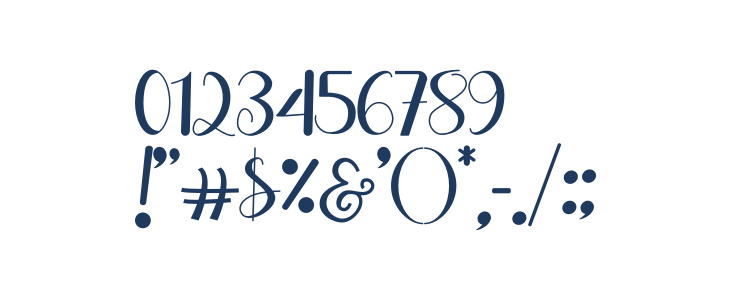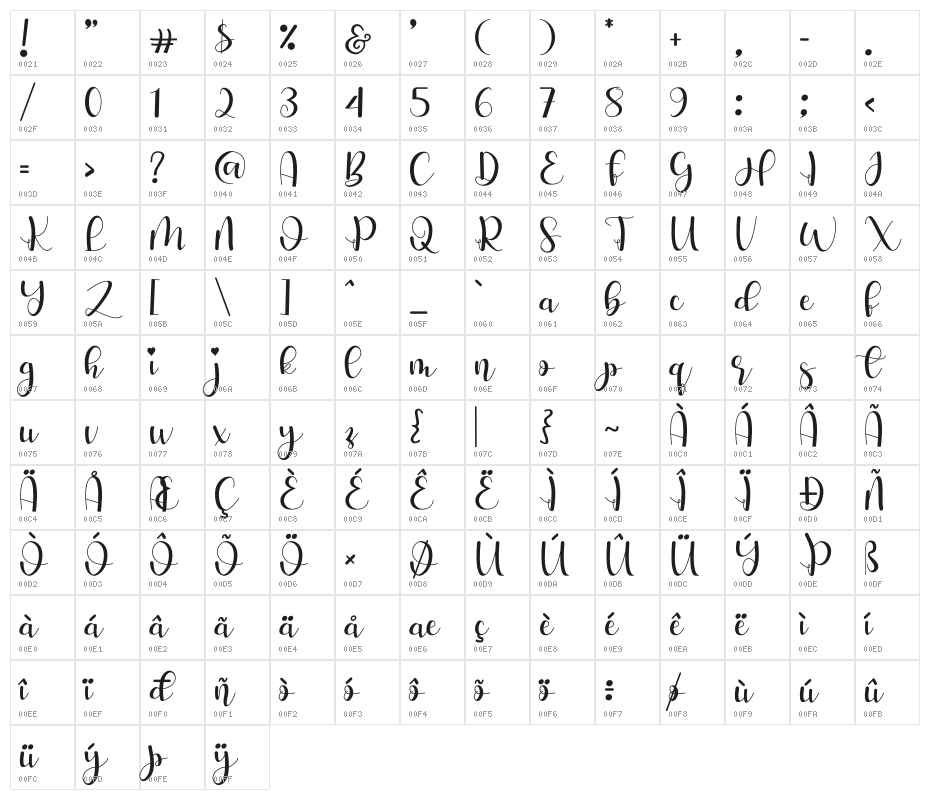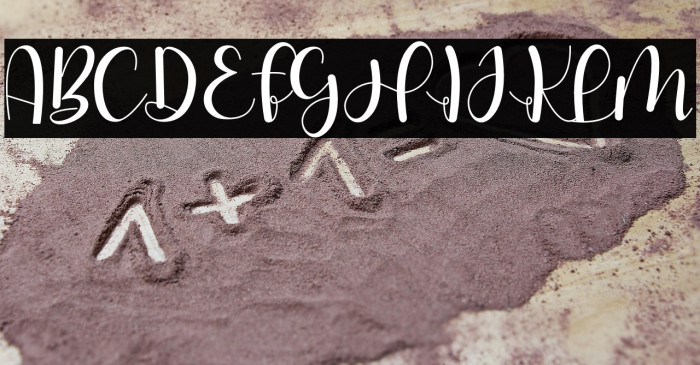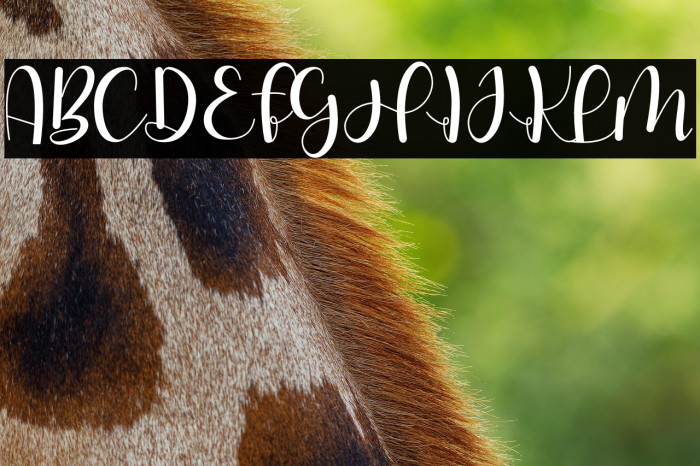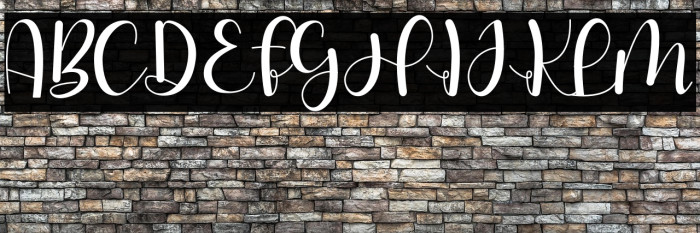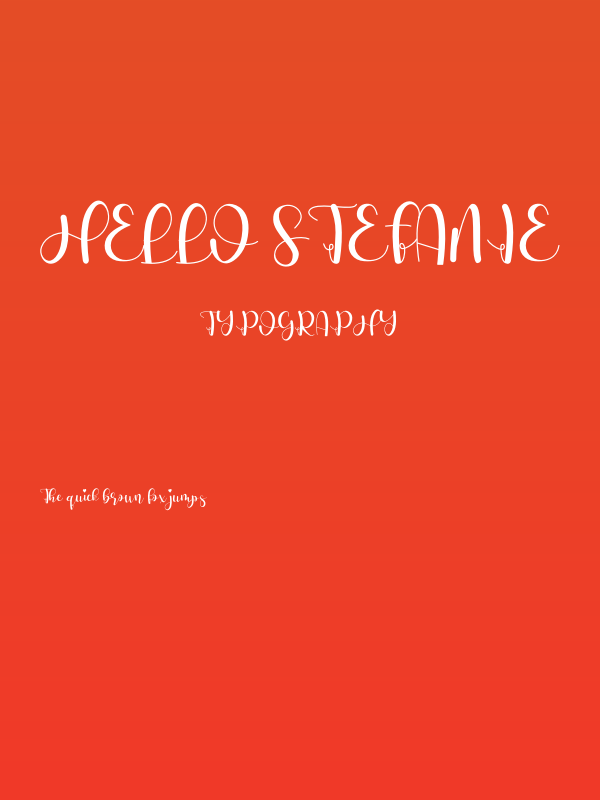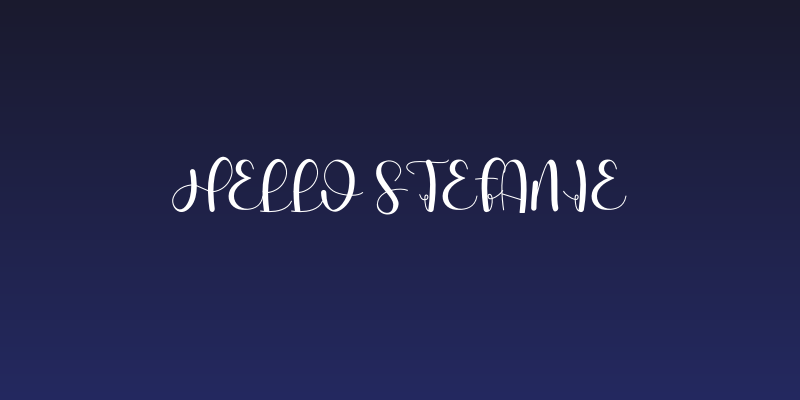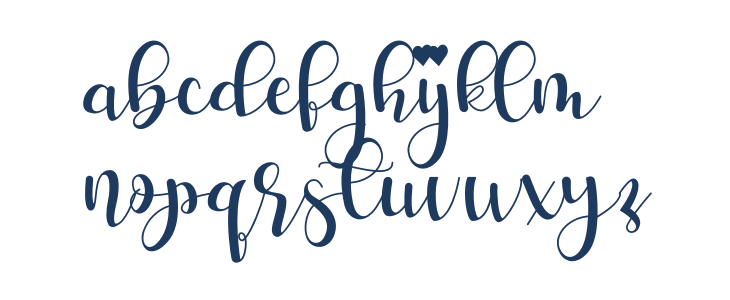
Hello Stefanie Font
Hello Stefanie Description
This font features a playful and elegant script style with a handwritten appearance. The letters are characterized by smooth, flowing curves and occasional decorative swashes, giving it a whimsical and artistic feel. The uppercase letters maintain a consistent height, while the lowercase letters vary in size, adding to the dynamic nature of the font. The numerals are uniquely styled, with some featuring loops and curves that mirror the letters' design. Special characters are creatively integrated, maintaining the overall aesthetic. This font is ideal for projects that require a personal touch or a creative flair.